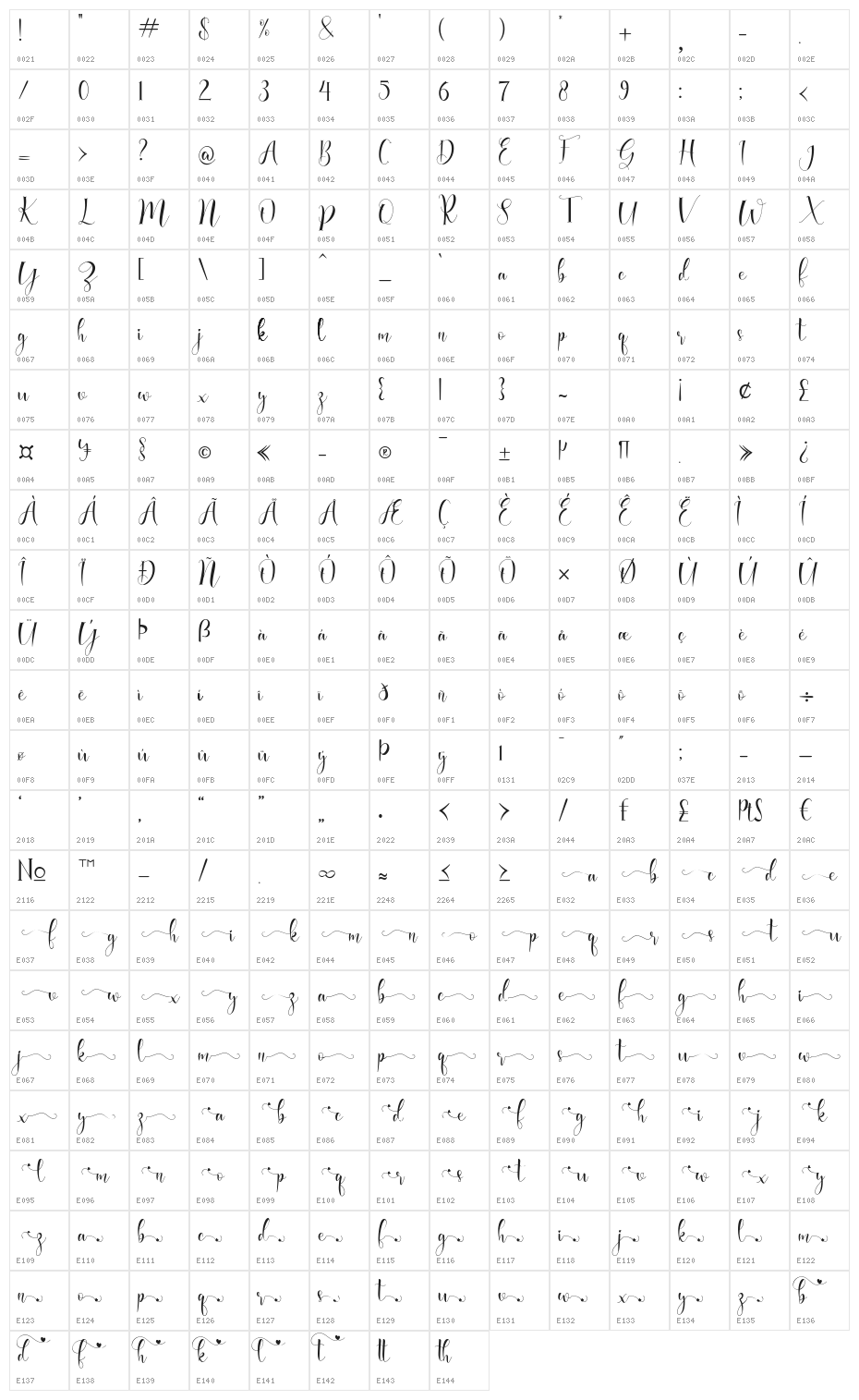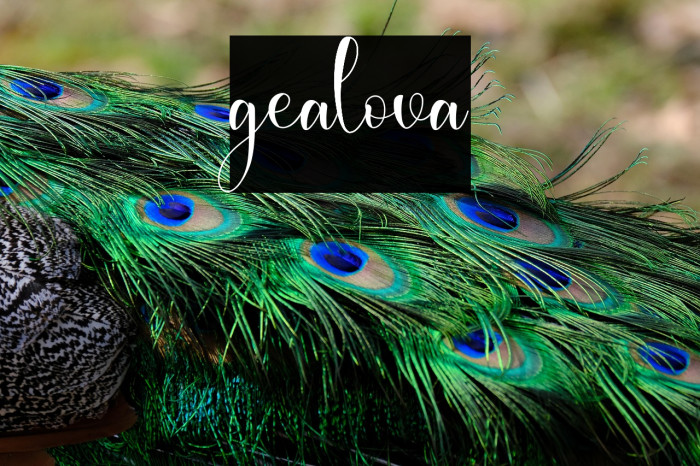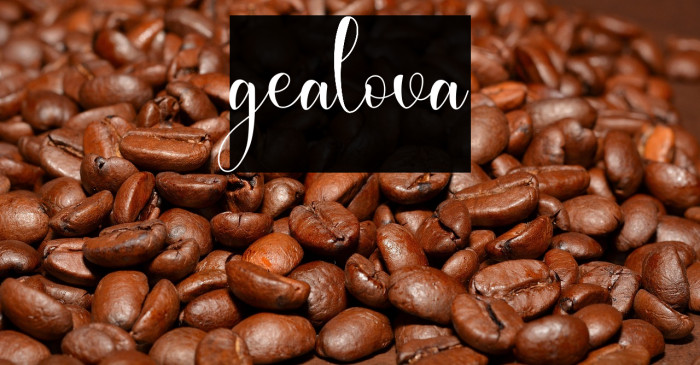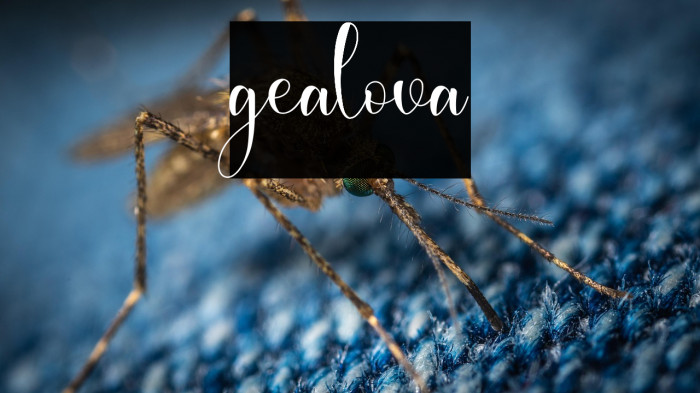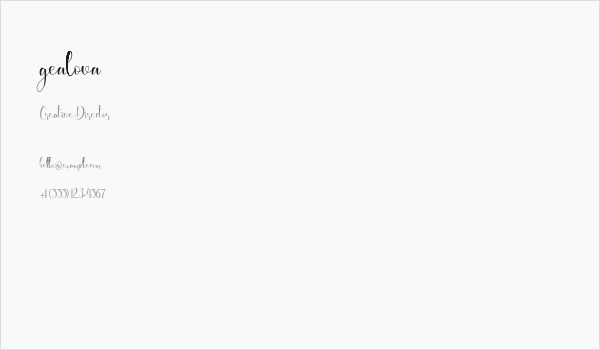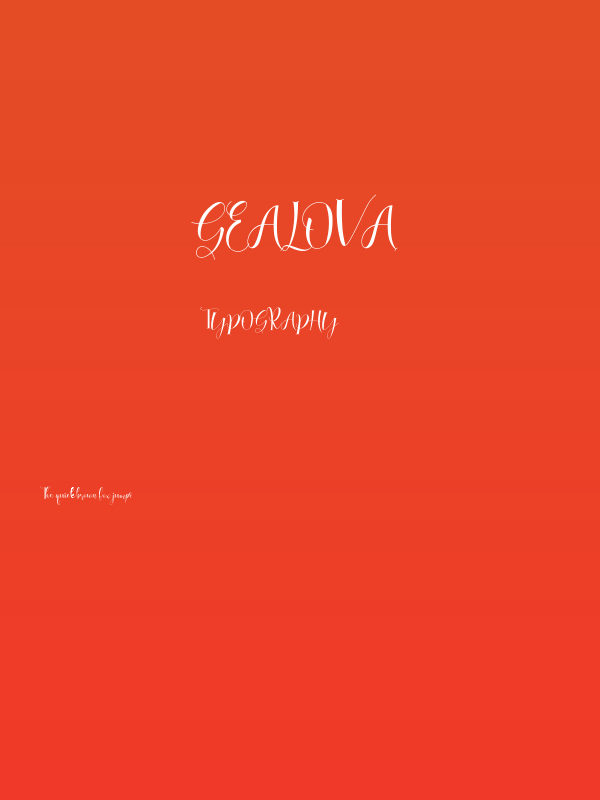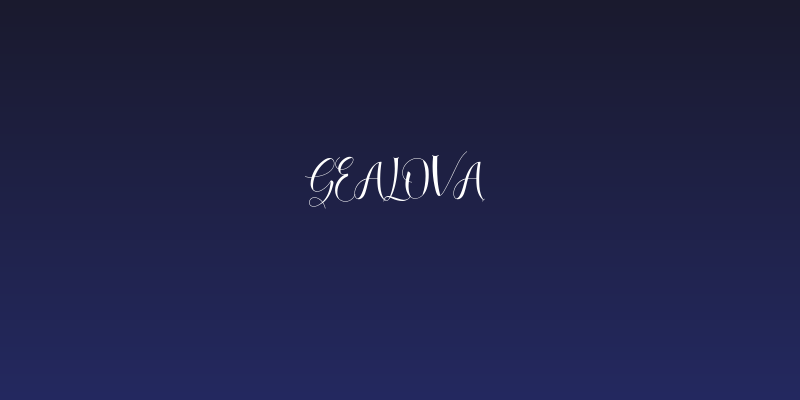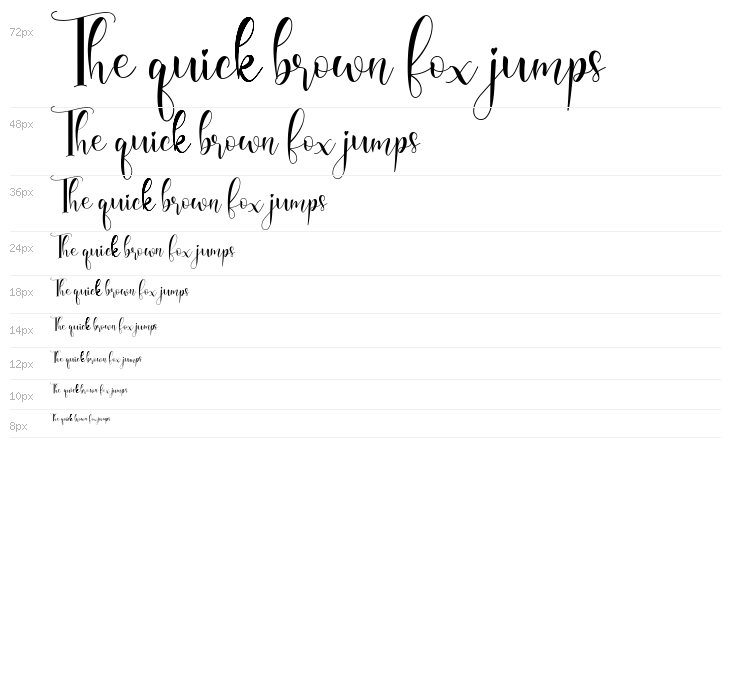
gealova Font
gealova Description
This elegant script font features a flowing, cursive style with high contrast between thick and thin strokes. The uppercase letters are adorned with intricate swashes and flourishes, giving them a decorative and sophisticated appearance. The lowercase letters maintain a consistent cursive flow, enhancing readability while retaining a stylish flair. Numbers and special characters are designed with the same attention to detail, ensuring a cohesive look across all elements. This font exudes a sense of elegance and refinement, making it ideal for formal and decorative applications.
| Overall Style | Elegant, Decorative |
| Proposed Projects | Ideal for wedding invitations, elegant branding, greeting cards, and luxury packaging. |